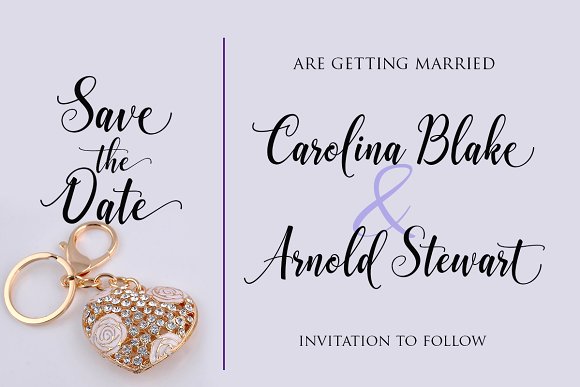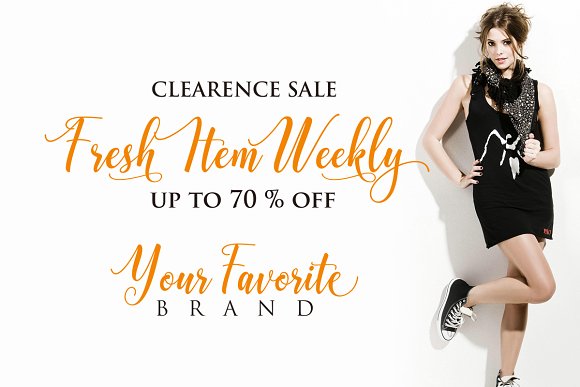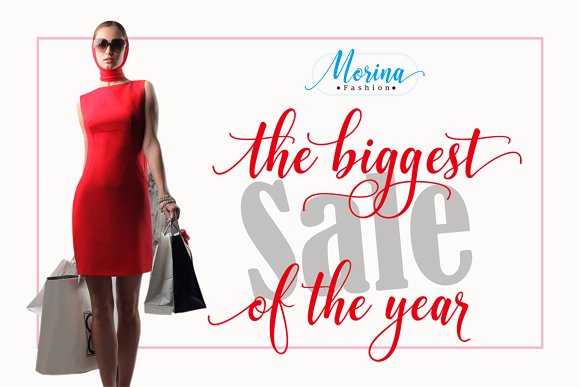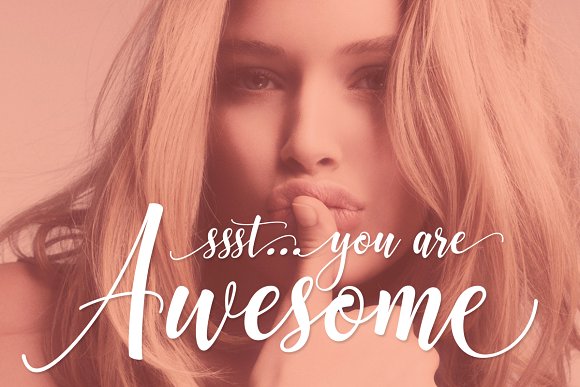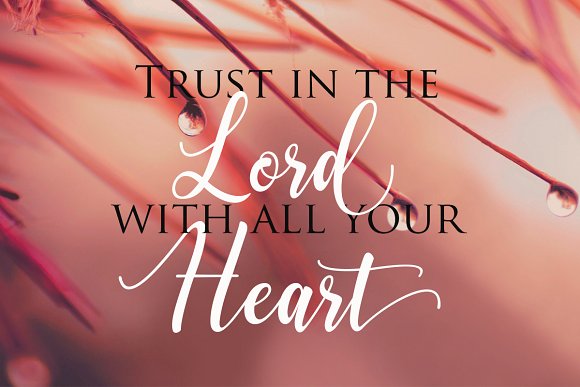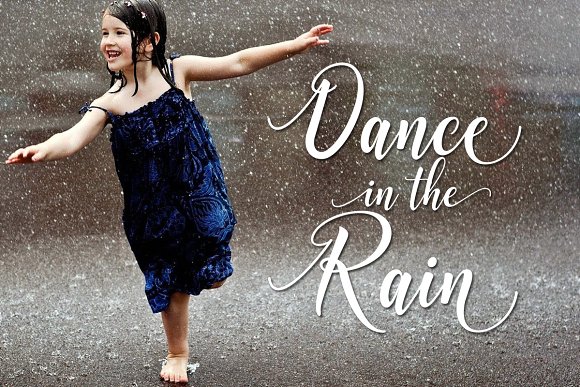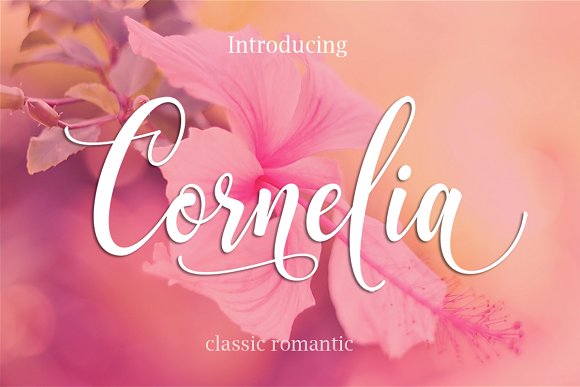
Cornelia Font: Elevate Your Designs with Elegance and Sophistication
Are you a designer or crafter looking for a font that exudes elegance and sophistication? Look no further than the Cornelia Font, a stunning script font that is sure to take your designs to the next level. With over 370 handmade characters, Cornelia offers a level of versatility and customization that is hard to find in other fonts.
The Story Behind Cornelia Font
Cornelia Font is a beautiful script font that has been carefully crafted to provide a unique and elegant look to any design project. The font features over 370 handmade characters, including uppercase and lowercase letters, numbers, and punctuation marks. Each character has been meticulously designed to ensure that it looks perfect in any context, whether you’re using it for a logo, a heading, or a body of text.
Key Features of Cornelia Font
- Handmade Characters: Cornelia Font features over 370 handmade characters, ensuring that your designs will have a unique and personal touch.
- Script Font: Cornelia is a script font that adds a touch of elegance and sophistication to any design.
- Versatile: With a range of characters, numbers, and punctuation marks, Cornelia is perfect for a variety of design projects, from logos and headings to body text and more.
Cornelia Font is perfect for designers and crafters who are looking for a font that will add a touch of elegance and sophistication to their designs. Whether you’re working on a logo, a brochure, or a website, Cornelia is sure to impress. The font is also perfect for crafters who are looking for a font to use for their handmade projects, such as scrapbooking, card making, and more.
Tips for Using Cornelia Font
- Pair with Other Fonts: Cornelia Font looks great when paired with other fonts, such as sans serif fonts or serif fonts. Experiment with different combinations to find the perfect look for your design.
- Use for Headings: Cornelia Font is perfect for headings and titles, adding a touch of elegance and sophistication to any design.
- Experiment with Colors: Cornelia Font looks great in a variety of colors, from bold and bright to soft and pastel. Experiment with different colors to find the perfect look for your design.
In conclusion, Cornelia Font is a stunning script font that is sure to elevate your designs with elegance and sophistication. With over 370 handmade characters, Cornelia offers a level of versatility and customization that is hard to find in other fonts. Whether you’re a designer or crafter, Cornelia Font is perfect for a variety of design projects, from logos and headings to body text and more. So why wait? Download Cornelia Font today and take your designs to the next level!